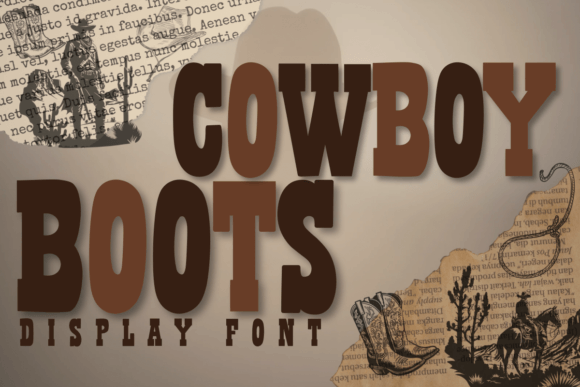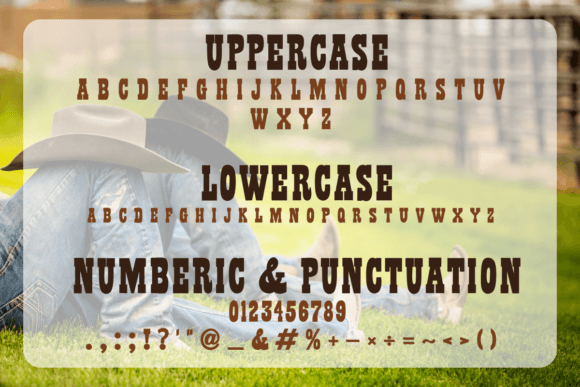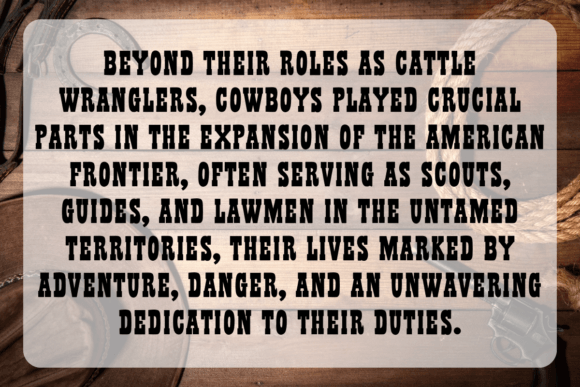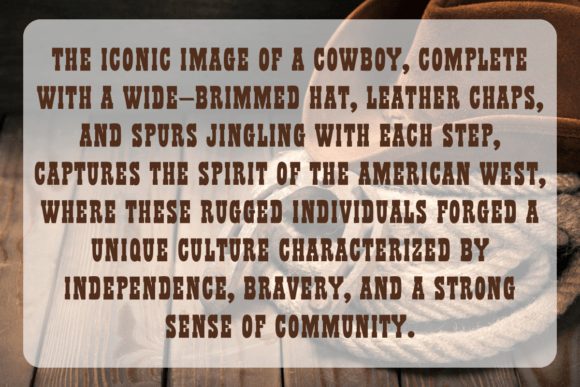
Cowboy Boots Font
About the Cowboy Boots Font
Crafted with precision, the Cowboy Boots Font is ready to bring your ideas to life. Cowboy Boots is a bold and stylish western font that looks like the old West. It’s perfect for adding a cowboy feel to your designs, with big, clear letters that make your words stand out. Whether for posters, signs, or fun projects, this font gives a touch of the Wild West to everything you create.
Cowboy Boots excels in headline applications, short impactful phrases, and branding elements where a strong, rugged personality is desired. It’s ideal for posters advertising country music events, western-themed businesses, or products emphasizing a heritage feel. Avoid using it for body text or lengthy paragraphs; its bold strokes are not optimized for readability in extended blocks of text. Similarly, its character is too assertive for UI elements where subtle clarity is critical.
This font’s core personality is bold and confident, leaning towards a rebellious yet classic aesthetic. To complement its Western flair, consider pairing it with a clean sans-serif like Montserrat for contrast or a more refined serif like Playfair Display for a touch of elegance. A simple script font could add a vintage feel for specific applications.
For a more modern take, a geometric sans-serif font could create a striking juxtaposition, highlighting Cowboy Boots’ unique character. Careful consideration of color palettes and supporting imagery is crucial to fully realize its potential in any given design.
Cowboy Boots Font Usage Examples
Cowboy Boots Font Example